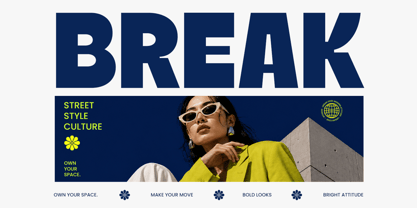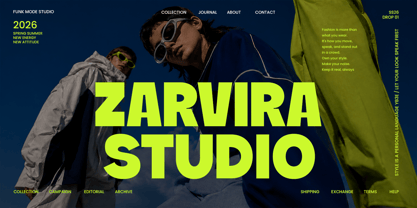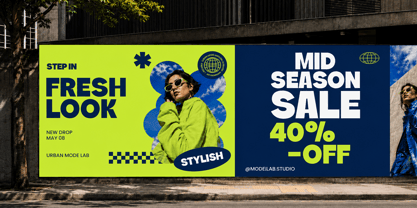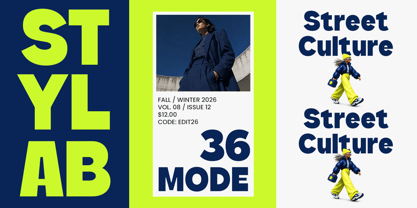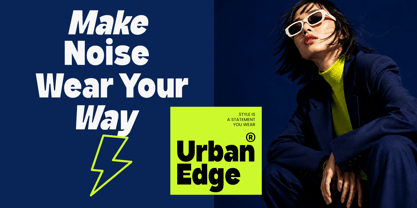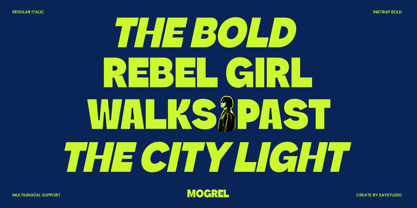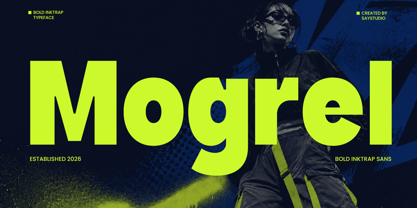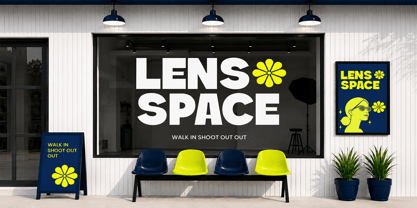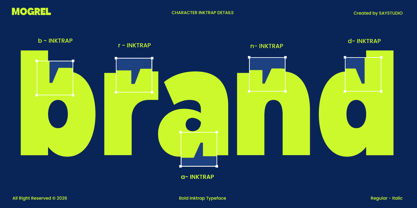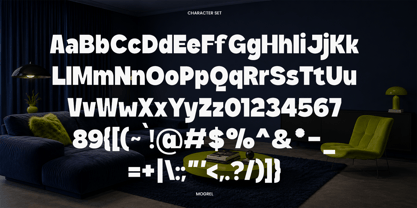
Mogrel
by Say Studio
The Mogrel Font Family was designed by Mussyayin and published by Say Studio. Mogrel contains 2 styles and family package options. More about this family
Mogrel is heavy bold inktrap style sans serif font is a powerful display typeface designed to make an immediate visual impact. Featuring an extra-bold structure, distinctive inktrap details, and a strong contemporary personality, Mogrel combines urban energy with a modern editorial aesthetic. Its compact proportions and striking forms make headlines, titles, logos, and promotional graphics stand out with confidence.
Perfect for streetwear branding, fashion campaigns, posters, magazines, sports graphics, music artwork, advertising, packaging, social media designs, and modern identity projects. Mogrel works especially well for bold headlines, oversized typography, campaign visuals, and creative compositions that demand a strong and memorable presence.
• Regular and Italic
• Inktrap Style
• Uppercase and Lowercase
• Number, Symbol, and Punctuation
• Multilingual Support
Designers: Mussyayin
Foundry: Say Studio